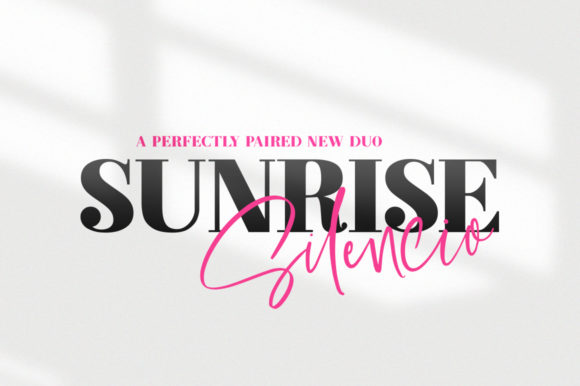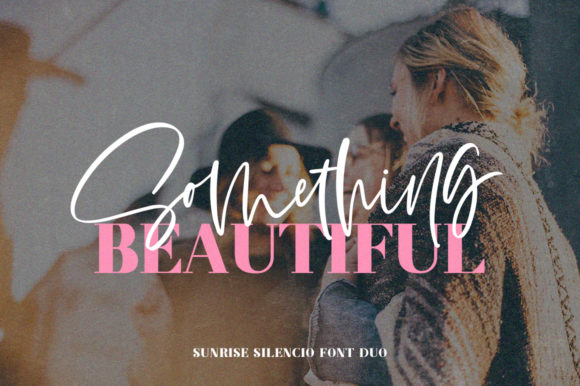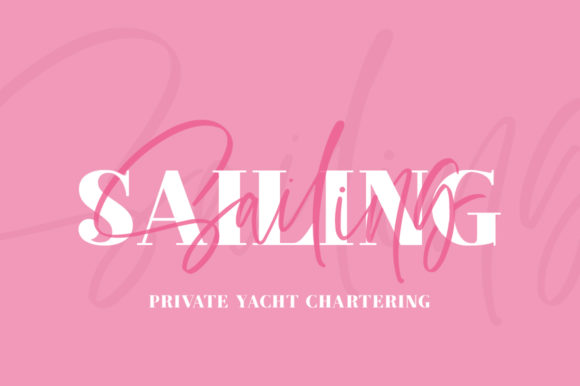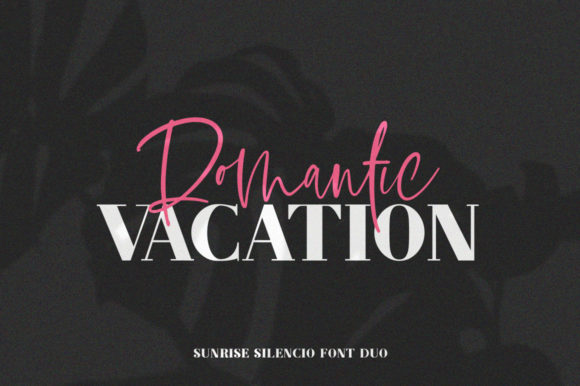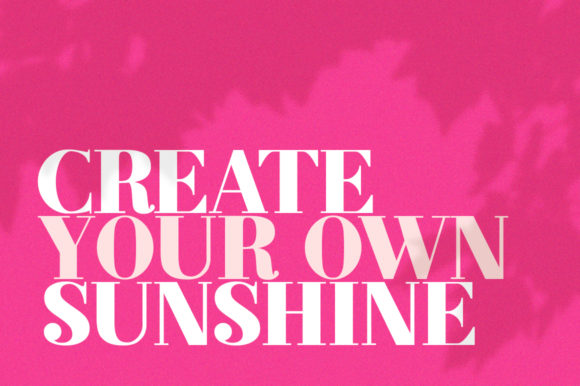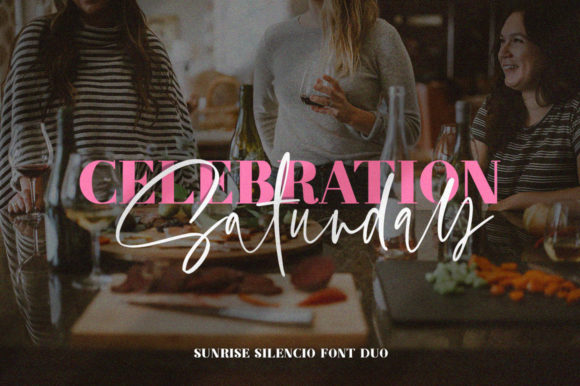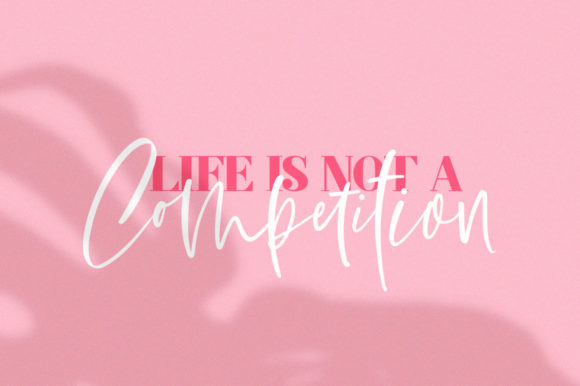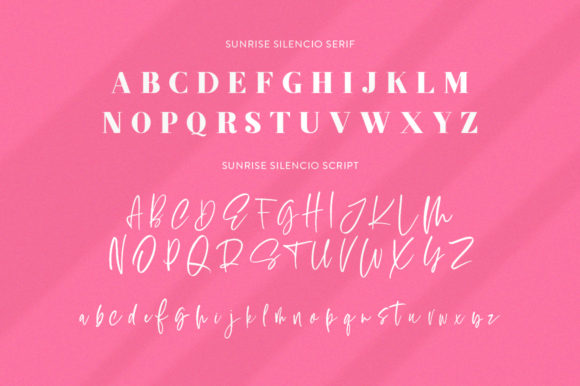
Sunrise Silencio Duo Font
About Sunrise Silencio Duo Font
Sunrise Silencio is a gorgeous and exciting font duo! A uniquely styled serif that is classy and classic but with a modern twist that’s paired perfectly with a spicy script which is full of life and bounce. Enjoy using them as a pair or individually!